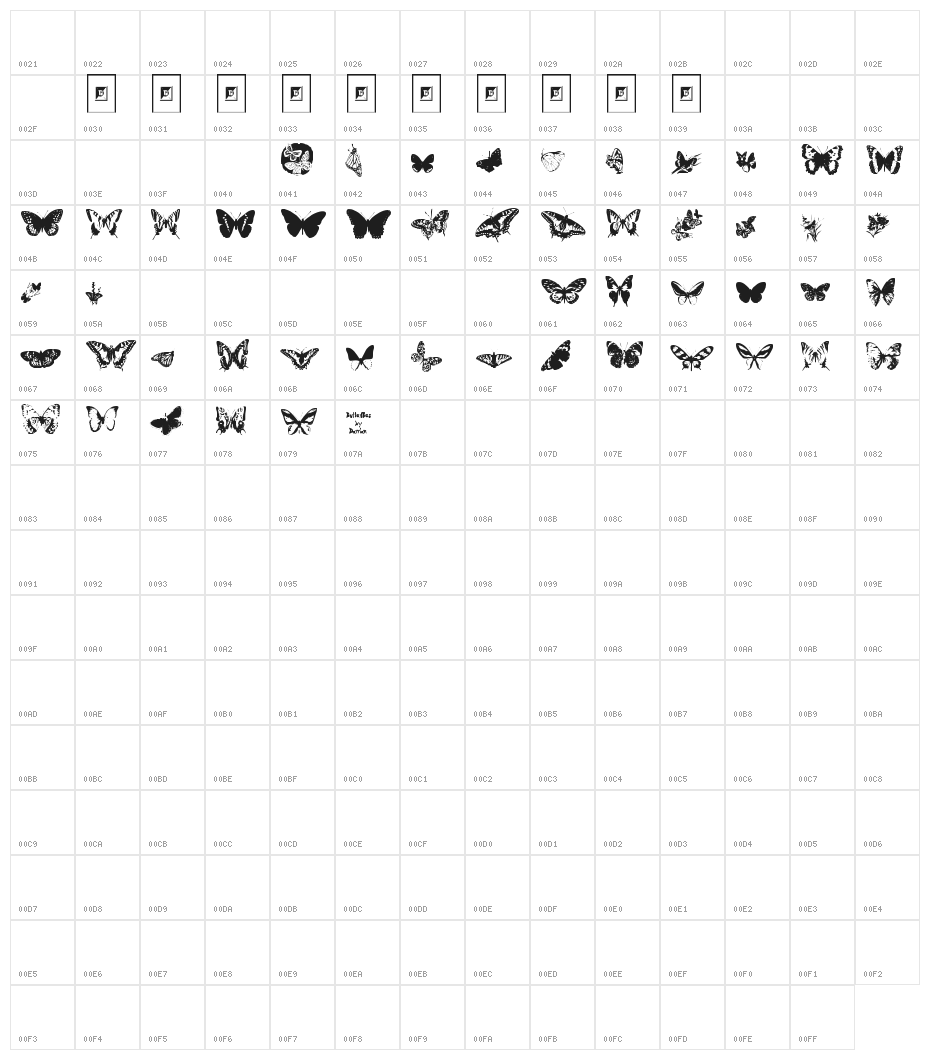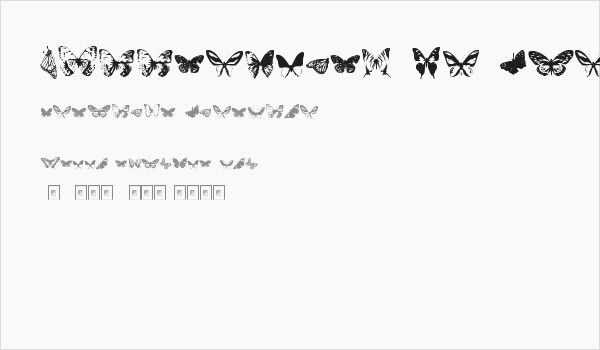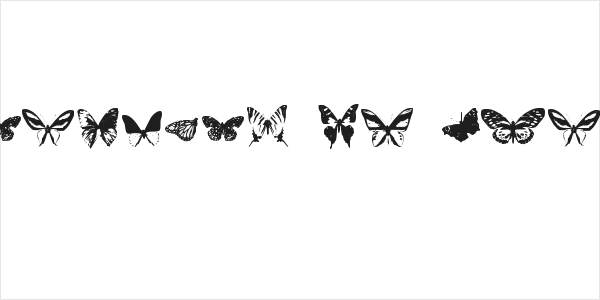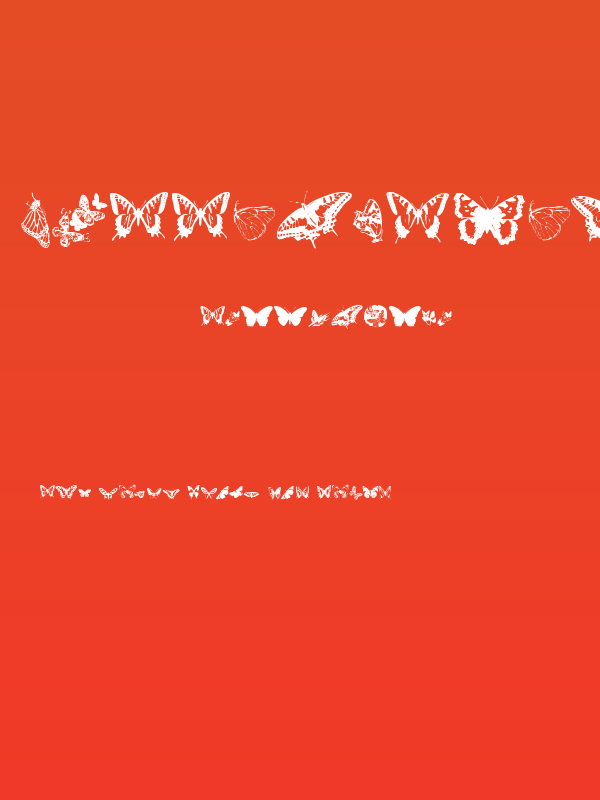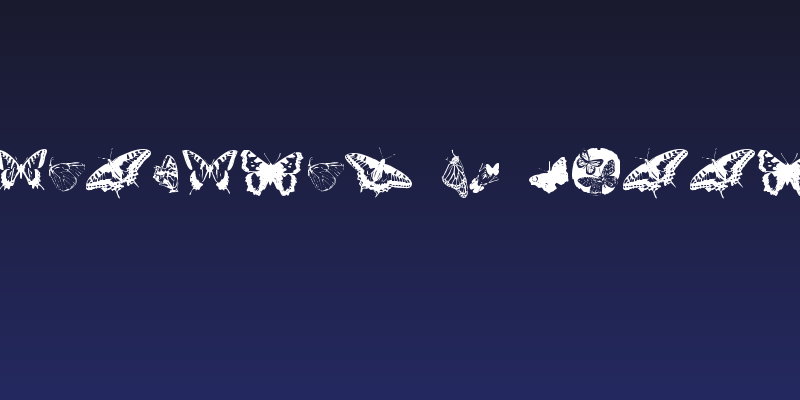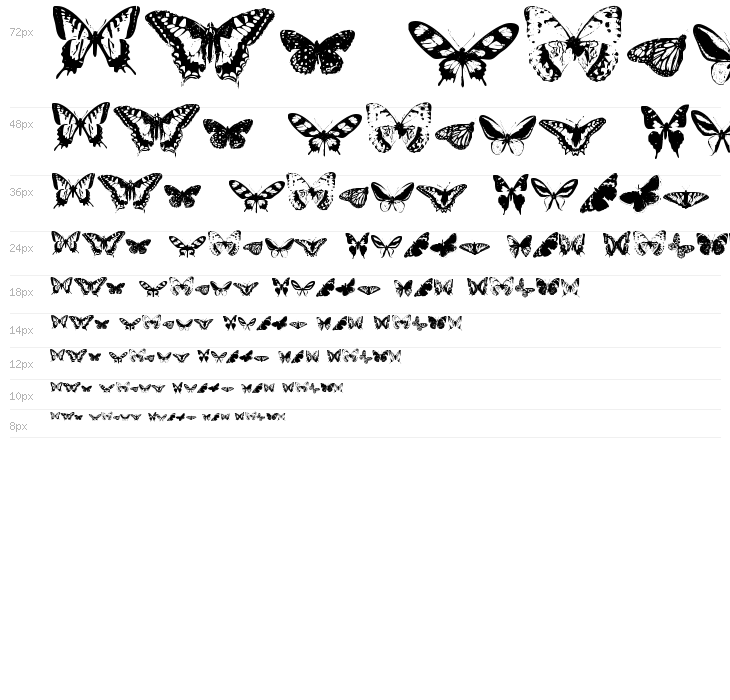
Butterflies by Darrian Font
Butterflies by Darrian Description
A decorative display font featuring detailed black and white butterfly illustrations in place of standard alphanumeric characters, with each glyph representing a unique butterfly or butterfly-themed design.
| Overall Style | Decorative, Nature-inspired |
| Use Case | Logos, Headlines, Posters, Crafts |
| Proposed Projects | Nature-themed posters, scrapbooking, invitations, branding for florists or environmental organizations, decorative headings. |